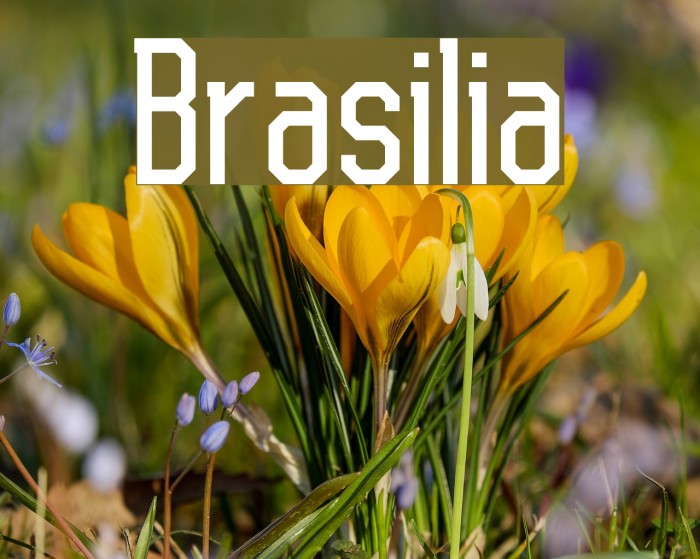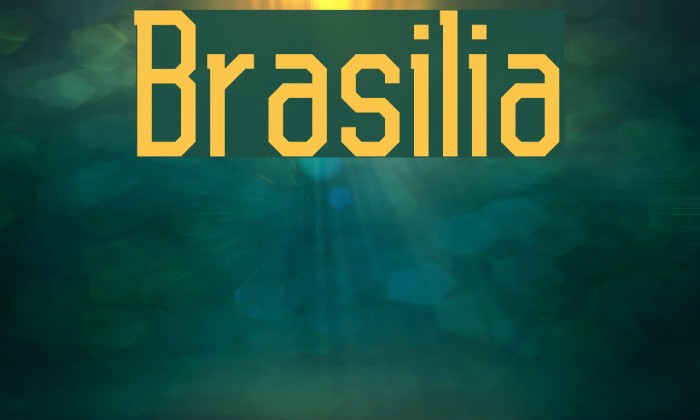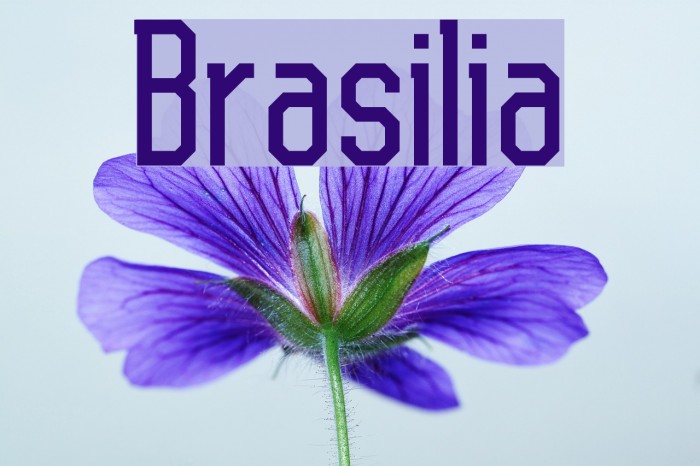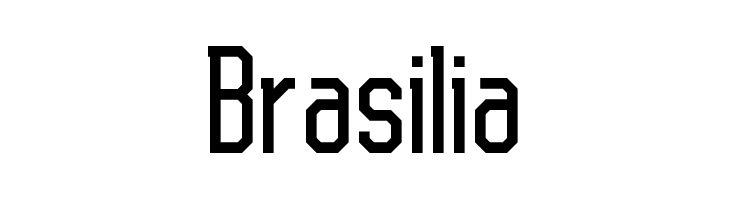
Brasilia Font
This font features a geometric and angular design, characterized by its sharp edges and straight lines. The uppercase letters are tall and narrow, while the lowercase letters maintain a consistent height, creating a uniform appearance. The numerals and special characters follow the same angular style, providing a cohesive look across all characters. The font's design is reminiscent of architectural elements, with a modern and structured feel. Its clean and precise lines make it suitable for projects that require a bold and striking visual impact.
A geometric and angular font with sharp edges and a modern, structured appearance.
- Proposed Projects: Ideal for architectural magazines, modern branding, poster designs, and digital interfaces.